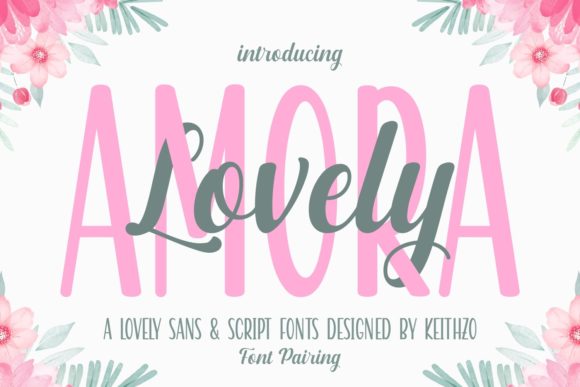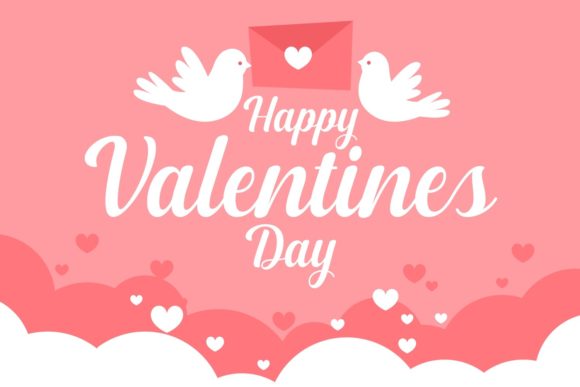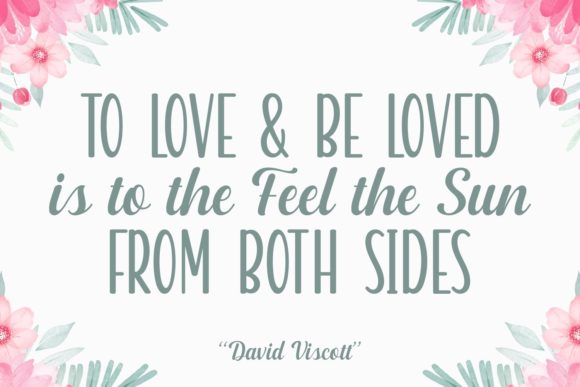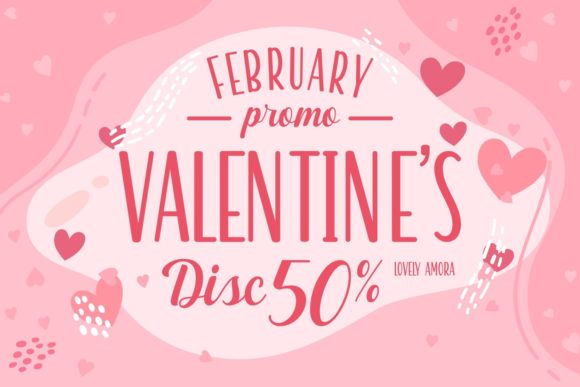
About Lovely Amora Font
Lovely Amora is a stylish and delicate duo font (sans serif and script). Fall for its ravishing style and use it to create gorgeous wedding invitations, beautiful stationary art, eye-catching social media posts, and much more!